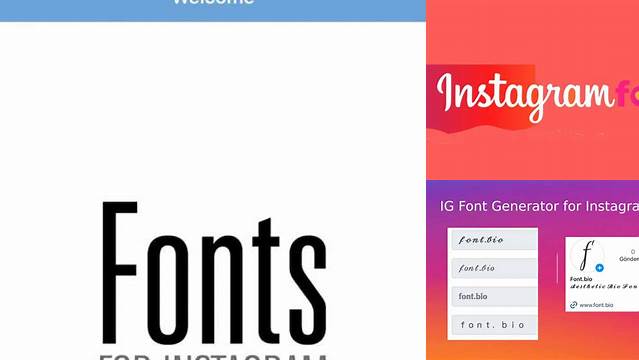
Aesthetic IG Fonts: Level Up Your Instagram!
Hey guys! Want to make your Instagram profile pop? One of the easiest ways to do that is by using aesthetic IG fonts! Forget those boring default fonts – we're diving into a world of stylish typography that will instantly elevate your posts and stories. Let's get started and explore how you can transform your IG game with just a few font tweaks.
1. What are Aesthetic IG Fonts?
Aesthetic IG Fonts are basically stylized versions of regular fonts that you can use on Instagram to add a unique flair to your profile, captions, and stories. These aren't your standard Arial or Times New Roman; they're custom-designed fonts that can range from elegant and sophisticated to playful and quirky. They help you stand out in a sea of similar-looking profiles and allow you to express your personality and brand identity more effectively.
Think of it like this: your font is like your outfit. You wouldn't wear the same thing every day, right? Similarly, using aesthetic IG fonts lets you switch up your style and keep things fresh and interesting for your followers. Plus, it shows that you're paying attention to detail and putting effort into your content, which can make a big difference in how people perceive you.
To use these fonts, you typically rely on font generator tools or apps. These tools take your text and convert it into a variety of different font styles that you can then copy and paste into your Instagram bio, captions, or stories. It's super simple and requires no technical skills whatsoever. The key is to find fonts that resonate with your personal style and brand, and to use them consistently to create a cohesive and recognizable look.
2. Why Use Different Fonts for Instagram?
So, why bother using different fonts for Instagram? Well, for starters, it’s all about making a statement. In a world where everyone’s scrolling through endless feeds, you need something that grabs attention. Using unique aesthetic IG fonts can do just that. It's like adding a splash of color to a black-and-white photo – it instantly makes things more interesting.
Beyond just grabbing attention, different fonts can also help you communicate your message more effectively. A playful, bubbly font might be perfect for a fun, lighthearted post, while an elegant, serif font could lend a touch of sophistication to a more serious announcement. The right font can enhance the mood and tone of your content, making it more engaging and relatable for your audience.
Another great reason to use different aesthetic IG fonts is to create a consistent brand identity. If you're running a business or trying to build a personal brand, using the same font (or a small selection of fonts) across all your Instagram content can help people recognize your posts instantly. It's like having a signature style – it makes you more memorable and helps you stand out from the competition.
3. Where to Find Aesthetic Fonts for IG?
Finding aesthetic fonts for IG is easier than you might think! There are tons of online tools and apps that can help you generate stylish fonts for your Instagram bio, captions, and stories. One of the most popular options is using font generator websites. These sites allow you to type in your text, and then they'll generate a whole bunch of different font styles that you can copy and paste into Instagram.
Some of the top font generator websites include LingoJam, Cool Symbol, and Meta Tags. These sites are super easy to use – just type in your text, scroll through the different font options, and click the one you like to copy it to your clipboard. Then, you can paste it directly into your Instagram bio, caption, or story. It's that simple!
In addition to font generator websites, there are also several mobile apps that offer similar functionality. Apps like Fonts for Instagram and Stylish Text allow you to create custom fonts directly on your phone, which can be super convenient if you're always on the go. These apps often come with additional features like the ability to create custom keyboard shortcuts and save your favorite fonts for easy access.
4. Using Font Generators for Instagram
Font generators are your best friend when it comes to spicing up your Instagram with aesthetic IG fonts. These tools are incredibly simple to use, and they offer a wide variety of font styles to choose from. To use a font generator, all you have to do is visit one of the many websites or download one of the apps that offer this service. Once you're there, you'll see a text box where you can type in whatever you want to convert into a fancy font.
After you've typed in your text, the font generator will automatically generate a bunch of different font styles for you to choose from. You can scroll through the options and find the one that you like best. Some font generators even allow you to customize the fonts by changing the size, color, or adding special effects. When you find a font that you like, simply copy it to your clipboard and paste it into your Instagram bio, caption, or story.
One thing to keep in mind when using font generators is that not all fonts are created equal. Some fonts may not be supported by Instagram, or they may not display correctly on all devices. It's always a good idea to test out your fonts on a few different devices before you commit to using them in your profile. Additionally, be careful not to overuse aesthetic IG fonts. Using too many different fonts can make your profile look cluttered and unprofessional.
5. Best Font Apps for Instagram
If you're looking for the best font apps for Instagram, you've got plenty of options! These apps make it super easy to create stylish text for your bios, captions, and stories right from your phone. One of the top contenders is Fonts for Instagram. This app boasts a huge library of cool fonts, ranging from elegant and sophisticated to fun and playful. It's user-friendly, and you can easily copy and paste your chosen font directly into Instagram.
Another great app is Stylish Text. This one not only offers a wide selection of fonts but also lets you create custom text decorations and emojis. You can really get creative with your text and make it stand out. Plus, Stylish Text works with other apps too, so you can use your fancy fonts in messages, emails, and more.
Cool Fonts is also a popular choice. It's straightforward and simple to use, making it perfect for beginners. The app offers a variety of fonts, symbols, and emojis to enhance your Instagram profile. And if you want even more options, check out Font Keyboard. This app installs a custom keyboard on your phone, allowing you to type in stylish fonts directly in any app, including Instagram. It's super convenient and saves you the hassle of copying and pasting.
6. How to Change Your Instagram Bio Font
Changing your Instagram bio font is a simple way to add some personality and flair to your profile. First, you'll need to find an aesthetic IG font that you like. You can use a font generator website or a font app, as mentioned earlier. Once you've found your perfect font, copy it to your clipboard.
Next, open the Instagram app on your phone and go to your profile page. Tap the Edit Profile button. In the bio section, paste the aesthetic IG font you copied earlier. You can also add emojis, symbols, and other special characters to further customize your bio. Once you're happy with your new bio, tap the Done button to save your changes.
Keep in mind that Instagram has some limitations when it comes to fonts. Not all fonts will display correctly, and some may not be supported at all. It's a good idea to test your bio on different devices to make sure it looks the way you want it to. Also, be mindful of readability. While it's fun to use fancy fonts, make sure your bio is still easy to read and understand.
7. Creating Aesthetic Instagram Captions
Creating aesthetic Instagram captions is an art form. It's not just about what you say, but how you say it. Using aesthetic IG fonts can add that extra touch of style and personality to your captions, making them more engaging and visually appealing. Start by choosing a font that complements your overall aesthetic. If you have a minimalist profile, a simple and elegant font might be the best choice. If you're all about fun and playfulness, go for a bolder and more quirky font.
Once you've chosen your font, think about the content of your caption. Are you sharing a personal story, promoting a product, or simply sharing a beautiful photo? Tailor your caption to match the mood and theme of your post. Use descriptive language and vivid imagery to bring your words to life. Don't be afraid to use emojis to add some extra personality and emotion to your captions.
Remember to keep your captions concise and easy to read. No one wants to scroll through a wall of text. Break up your captions into short paragraphs and use line breaks to create visual space. This will make your captions more inviting and easier to digest. And finally, always proofread your captions before posting them. Nothing ruins a good caption like a typo or grammatical error.
8. Aesthetic Instagram Story Fonts
Instagram Stories are a fantastic way to connect with your audience in a more personal and spontaneous way. And just like with your bio and captions, using aesthetic IG fonts can make your stories even more engaging. Instagram offers a few built-in font options, but they can be a bit limited. To really make your stories stand out, you can use font generator apps or websites to create custom fonts.
When choosing aesthetic IG fonts for your stories, consider the overall theme and style of your story. If you're sharing a behind-the-scenes look at your day, a casual and handwritten font might be a good choice. If you're announcing a special event or promotion, a bolder and more attention-grabbing font could be more effective. You can also use different fonts to highlight important information or create visual interest.
To add custom aesthetic IG fonts to your stories, simply create your text using a font generator app or website, copy it to your clipboard, and then paste it into your Instagram Story. You can also use the built-in text tools in Instagram to add additional text, stickers, and filters to your stories. Experiment with different combinations to create visually appealing and engaging stories that capture your audience's attention.
9. Matching Fonts to Your IG Theme
One of the keys to creating a cohesive and visually appealing Instagram profile is to match your aesthetic IG fonts to your overall theme. Think of your Instagram feed as a curated gallery, where every post contributes to a unified aesthetic. Your fonts should complement this aesthetic, rather than clash with it.
If you have a minimalist and clean Instagram theme, opt for simple and elegant fonts like sans-serif fonts or light script fonts. These fonts will enhance the clean and uncluttered look of your profile. If you have a more vibrant and colorful theme, you can experiment with bolder and more playful fonts. Just make sure that the fonts you choose don't overpower your photos and videos.
To ensure consistency, choose a small selection of fonts (two or three at most) and stick to them across all your Instagram content. This will help create a recognizable brand identity and make your profile more visually appealing. You can use one font for your bio, another for your captions, and a third for your stories. Just make sure that all the fonts you choose work well together and complement your overall aesthetic.
10. Font Combinations That Work Well
Choosing the right font combinations can elevate your Instagram aesthetic from good to great. It's all about finding fonts that complement each other and create a visually appealing hierarchy. One classic combination is pairing a bold, attention-grabbing font with a simple, easy-to-read font. For example, you could use a bold sans-serif font for your headings and a lighter serif font for your body text.
Another great combination is pairing a script font with a sans-serif font. Script fonts are elegant and stylish, but they can be difficult to read in large blocks of text. By pairing them with a sans-serif font, you can create a balance between style and readability. You can use the script font for your name or a short quote in your bio, and the sans-serif font for the rest of your text.
When choosing font combinations, it's important to consider the overall tone and style of your Instagram profile. If you have a more formal and professional profile, opt for classic and timeless font combinations. If you have a more casual and playful profile, you can experiment with more unique and modern font combinations.
11. Fonts for Different Instagram Niches
Different Instagram niches often have their own distinct aesthetics, and choosing the right fonts can help you align your profile with your target audience. For example, if you're in the beauty or fashion niche, you might want to use elegant and sophisticated fonts like serif fonts or script fonts. These fonts convey a sense of luxury and style, which can be appealing to your audience.
If you're in the travel or adventure niche, you might want to use fonts that are more rugged and outdoorsy. Think bold sans-serif fonts or handwritten fonts that evoke a sense of exploration and adventure. If you're in the food or cooking niche, you might want to use fonts that are fun and playful, like bubbly fonts or handwritten fonts that look like they were scribbled in a cookbook.
No matter what niche you're in, it's important to choose fonts that are relevant to your content and target audience. Research what fonts are commonly used in your niche and experiment with different options to find the ones that resonate with you and your followers.
12. Fonts That Increase Engagement
Certain fonts have been shown to increase engagement on Instagram. These fonts tend to be visually appealing, easy to read, and relevant to the content being shared. Bold fonts, for example, can be effective at grabbing attention and highlighting important information. Script fonts can add a personal touch and make your captions more engaging.
Fonts that are easy to read are also more likely to increase engagement. If your followers have to strain their eyes to read your captions, they're less likely to engage with your content. Choose fonts that are clear, legible, and appropriately sized for mobile devices.
Ultimately, the best fonts for increasing engagement are those that resonate with your target audience. Experiment with different fonts and track your engagement metrics to see which ones perform best. Pay attention to what your competitors are doing and learn from their successes and failures.
13. Avoiding Font Mistakes on Instagram
Using aesthetic IG fonts can be a great way to enhance your Instagram profile, but it's important to avoid common font mistakes that can detract from your overall aesthetic. One of the biggest mistakes is using too many different fonts. Stick to a small selection of fonts (two or three at most) and use them consistently across all your Instagram content.
Another mistake is choosing fonts that are difficult to read. While it's tempting to use fancy and elaborate fonts, make sure that your followers can actually read your captions and bio. Choose fonts that are clear, legible, and appropriately sized for mobile devices.
Finally, avoid using fonts that clash with your overall theme or brand. Your fonts should complement your content and contribute to a cohesive and visually appealing aesthetic. If you're not sure what fonts to use, ask for feedback from your friends, family, or followers.
14. Legal Considerations for Using Fonts
Before you start using aesthetic IG fonts on your Instagram profile, it's important to understand the legal considerations involved. Many fonts are protected by copyright, which means that you need permission from the font designer or owner to use them commercially. Using copyrighted fonts without permission can result in legal action.
There are many free fonts available online, but it's important to check the license agreement before using them. Some free fonts are only licensed for personal use, while others can be used commercially. If you're planning to use fonts for business purposes, make sure that you have the appropriate license.
You can also purchase commercial font licenses from font foundries or online marketplaces. These licenses typically grant you the right to use the fonts for a variety of purposes, including on social media, websites, and in print materials.
15. How Fonts Affect Brand Perception
The fonts you use on your Instagram profile can have a significant impact on how people perceive your brand. Fonts can convey a wide range of emotions and associations, from elegance and sophistication to fun and playfulness. By choosing the right fonts, you can create a strong and consistent brand identity that resonates with your target audience.
For example, if you're running a luxury brand, you might want to use serif fonts that convey a sense of tradition and quality. If you're running a tech startup, you might want to use sans-serif fonts that convey a sense of modernity and innovation. If you're running a children's brand, you might want to use playful and whimsical fonts that appeal to kids and their parents.
Think carefully about the message you want to convey with your brand and choose fonts that align with that message. Your fonts should be consistent across all your marketing materials, including your Instagram profile, website, and print materials.
16. DIY Font Creation for Instagram
If you're feeling creative, you can even try creating your own fonts for Instagram. There are many font creation tools available online that make it easy to design your own custom fonts. These tools allow you to draw each letterform from scratch, or you can import existing fonts and modify them to create something unique.
Creating your own fonts can be a time-consuming process, but it can also be incredibly rewarding. By designing your own fonts, you can create a truly unique brand identity that sets you apart from the competition. Plus, you'll have full control over the look and feel of your fonts, ensuring that they perfectly match your brand aesthetic.
If you're new to font design, start with a simple sans-serif font. These fonts are easier to create than serif fonts, and they're more versatile for use on social media. You can also take online courses or read books about font design to learn more about the process.
17. The Psychology of Fonts
Fonts have a powerful impact on our subconscious minds. They can evoke emotions, create associations, and influence our perceptions of brands and messages. Understanding the psychology of fonts can help you choose the right fonts for your Instagram profile and create a more effective marketing strategy.
Serif fonts, for example, are often associated with tradition, authority, and trustworthiness. They're a good choice for brands that want to convey a sense of stability and reliability. Sans-serif fonts, on the other hand, are often associated with modernity, innovation, and simplicity. They're a good choice for brands that want to convey a sense of cutting-edge technology and forward-thinking ideas.
Script fonts are often associated with elegance, creativity, and femininity. They're a good choice for brands that want to convey a sense of luxury and artistry. Display fonts are often associated with fun, playfulness, and excitement. They're a good choice for brands that want to grab attention and make a statement.
18. Trending Fonts on Instagram Right Now
Keeping up with the latest font trends on Instagram can help you stay relevant and appeal to your target audience. Some of the trending fonts on Instagram right now include handwritten fonts, retro fonts, and geometric fonts. Handwritten fonts add a personal touch and make your captions more engaging.
Retro fonts evoke a sense of nostalgia and can be a good choice for brands that want to appeal to a vintage aesthetic. Geometric fonts are clean, modern, and versatile, making them a good choice for a wide range of brands and niches. To stay up-to-date on the latest font trends, follow font designers and typography blogs on Instagram.
Pay attention to what your competitors are doing and see what fonts they're using. You can also use font identification tools to identify the fonts used in other Instagram profiles. Just be sure to put your own spin on the trends and choose fonts that align with your brand aesthetic.
19. Monogram Fonts for Instagram Profiles
Monogram fonts are a stylish and sophisticated way to personalize your Instagram profile. A monogram is a design that combines two or more letters, typically the initials of a person or brand. Monogram fonts are designed to create visually appealing monograms that can be used in logos, profile pictures, and other branding materials.
There are many different monogram fonts available, ranging from classic and elegant to modern and minimalist. Some monogram fonts feature interlocking letters, while others feature letters that are side-by-side. When choosing a monogram font, consider your overall brand aesthetic and the message you want to convey.
Monogram fonts can be used in a variety of ways on Instagram. You can use them to create a profile picture that features your initials, or you can use them to create a watermark for your photos and videos. You can also use monogram fonts to create custom logos and branding materials.
20. Festive Fonts for Holiday Instagram Posts
During the holidays, using festive fonts can add a touch of seasonal cheer to your Instagram posts. There are many different festive fonts available, ranging from elegant script fonts to playful display fonts. Some popular festive fonts include Christmas-themed fonts, Hanukkah-themed fonts, and New Year's-themed fonts.
When choosing festive fonts, consider the overall tone and style of your holiday posts. If you're sharing elegant holiday greetings, you might want to use a sophisticated script font. If you're sharing fun and playful holiday photos, you might want to use a whimsical display font.
Festive fonts can be used in a variety of ways on Instagram. You can use them to create custom holiday graphics, or you can use them to add a festive touch to your captions and stories. You can also use festive fonts to create custom holiday greetings and invitations.
21. Animated Fonts for IG Stories
Animated fonts can bring your Instagram Stories to life and capture your audience's attention. These fonts feature moving elements, such as shimmering effects, bouncing letters, and rotating designs. Animated fonts are a great way to add a dynamic and engaging touch to your stories.
There are many different animated fonts available, ranging from subtle and elegant to bold and eye-catching. Some animated fonts feature simple animations, while others feature more complex and intricate designs. When choosing animated fonts, consider the overall style and theme of your stories.
To use animated fonts in your Instagram Stories, you'll need to use a third-party app or website. There are many apps and websites that offer animated font generators, allowing you to create custom animated text for your stories. Simply type in your text, choose your font style, and then download the animated text as a GIF or video file.
22. Retro Fonts for a Vintage Vibe
If you're looking to add a touch of nostalgia to your Instagram profile, retro fonts are a great choice. These fonts evoke the styles of past eras, such as the 1950s, 1960s, and 1970s. Retro fonts can add a unique and stylish vibe to your posts, making them stand out from the crowd.
There are many different retro fonts available, ranging from bold and groovy to sleek and sophisticated. Some popular retro fonts include script fonts, serif fonts, and display fonts. When choosing retro fonts, consider the overall aesthetic of your profile and the message you want to convey.
Retro fonts can be used in a variety of ways on Instagram. You can use them to create vintage-inspired graphics, or you can use them to add a retro touch to your captions and stories. You can also use retro fonts to create custom logos and branding materials.
23. Using Emojis with Aesthetic Fonts
Emojis can be a fun and expressive way to enhance your Instagram captions and stories, but it's important to use them thoughtfully and strategically. When combining emojis with aesthetic IG fonts, consider the overall tone and style of your post. Choose emojis that complement your font choice and add to the overall message you're trying to convey.
Avoid using too many emojis, as this can make your captions look cluttered and unprofessional. Instead, use a few well-chosen emojis to highlight key points or add a touch of personality. You can also use emojis to break up long blocks of text and make your captions more visually appealing.
When using emojis with aesthetic IG fonts, make sure that the emojis are compatible with the font you've chosen. Some emojis may not display correctly with certain fonts, so it's important to test your captions on different devices to ensure that they look the way you want them to.
24. How to Test Fonts Before Posting
Before you commit to using a particular font on your Instagram profile, it's always a good idea to test it out first. This will help you ensure that the font looks good on different devices and that it's easy to read. One way to test fonts is to create a test post and view it on your phone, tablet, and computer.
Pay attention to how the font looks on different screen sizes and resolutions. Make sure that the font is clear and legible, and that it doesn't appear distorted or pixelated. You can also ask your friends or followers for feedback on the font.
Another way to test fonts is to use a font preview tool. These tools allow you to type in your text and see how it will look in different fonts. You can also adjust the font size, color, and spacing to see how it affects the overall appearance of the text.
25. Combining Fonts with Instagram Filters
Instagram filters can enhance the look and feel of your photos and videos, but they can also affect the appearance of your fonts. When combining fonts with Instagram filters, consider how the filter will affect the readability and clarity of your text. Some filters may make your fonts appear blurry or distorted, while others may make them blend in with the background.
Choose filters that complement your font choice and enhance the overall aesthetic of your post. Avoid using filters that make your fonts difficult to read or that clash with your font style. You can also adjust the intensity of the filter to fine-tune the appearance of your text.
When combining fonts with Instagram filters, it's important to test your posts on different devices to ensure that they look the way you want them to. What looks good on your phone may not look as good on someone else's phone, so it's always a good idea to get a second opinion.
26. Accessibility Considerations for Fonts
When choosing aesthetic IG fonts for your Instagram profile, it's important to consider accessibility. Not everyone can see or read fonts in the same way, so it's important to choose fonts that are accessible to a wide range of users. Choose fonts that are clear, legible, and appropriately sized for mobile devices.
Avoid using fonts that are too small, too thin, or too ornate. These fonts can be difficult to read for people with visual impairments. You should also avoid using fonts that have poor contrast with the background, as this can make them difficult to see.
Consider adding alt text to your images and videos to describe the content for people who are using screen readers. You can also use captions and transcripts to provide additional information for people who are deaf or hard of hearing.
27. Measuring Font Performance on IG
While aesthetics are important, it's also essential to measure the performance of your aesthetic IG fonts. How do you know if a particular font is actually resonating with your audience? Track your engagement metrics, such as likes, comments, and shares, to see how different fonts perform. If you notice that certain fonts consistently generate more engagement, that's a good sign that they're working well.
Use Instagram Insights to analyze your audience demographics and see if certain fonts appeal more to specific groups. For example, you might find that younger audiences prefer more modern and playful fonts, while older audiences prefer more classic and traditional fonts.
Don't be afraid to experiment with different fonts and track your results. Over time, you'll develop a better understanding of which fonts resonate with your audience and help you achieve your Instagram goals.
28. Staying Updated on Font Trends
The world of typography is constantly evolving, so it's important to stay updated on the latest font trends. Follow font designers, typography blogs, and design publications on Instagram and other social media platforms. Attend design conferences and workshops to learn about new font technologies and techniques.
Experiment with new fonts and incorporate them into your Instagram profile when appropriate. Just be sure to stay true to your brand aesthetic and choose fonts that align with your overall message. Don't be afraid to be a trendsetter, but also be mindful of what your audience responds to.
By staying updated on font trends, you can keep your Instagram profile fresh and engaging and attract new followers.
29. The Future of Fonts on Instagram
What does the future hold for fonts on Instagram? As technology continues to evolve, we can expect to see even more innovative and creative font options emerge. Animated fonts, 3D fonts, and interactive fonts may become more commonplace, allowing users to create truly immersive and engaging experiences.
We may also see Instagram introduce new features that allow users to customize their fonts even further. Imagine being able to adjust the kerning, tracking, and leading of your fonts directly within the Instagram app. Or what if you could upload your own custom fonts to use on your profile?
The possibilities are endless. As Instagram continues to prioritize visual content, fonts will play an increasingly important role in helping users stand out and express their creativity.
30. Final Thoughts on Aesthetic IG Fonts
So, there you have it – a comprehensive guide to using aesthetic IG fonts to level up your Instagram game. From choosing the right fonts for your brand to measuring their performance, we've covered everything you need to know to create a visually appealing and engaging Instagram profile. Remember, fonts are just one piece of the puzzle. To truly succeed on Instagram, you need to create high-quality content, engage with your audience, and stay true to your brand.
But with the right fonts in your arsenal, you'll be well on your way to creating an Instagram presence that's both stylish and successful. So go ahead, experiment with different fonts, and see what works best for you. And most importantly, have fun and let your creativity shine!